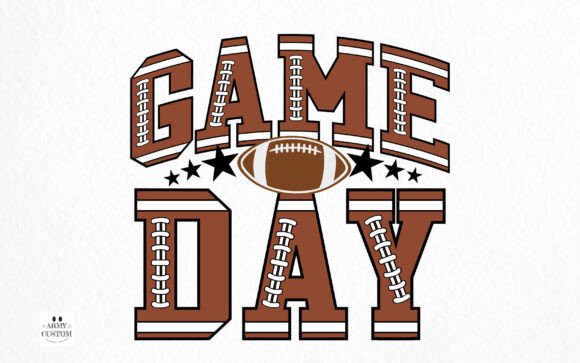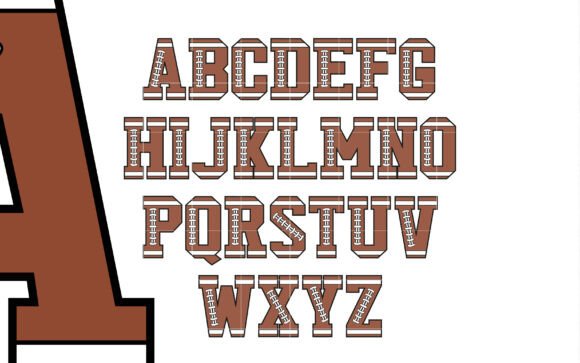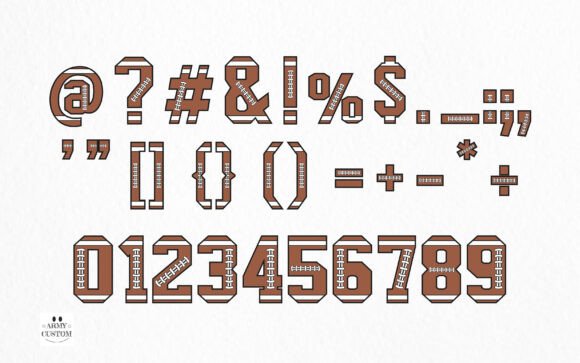
The Perfect Play: Unlocking the Power of the American Football Font
For designers who bleed gridiron green, there’s a font that’s sure to be the MVP of their typography arsenal: the American Football Font. Imagine you’re huddled around the TV on a crisp autumn Sunday, surrounded by friends and family, cheering on your favorite team. You’re on the edge of your seat as the quarterback calls an audible, and the crowd erupts in a frenzy of noise and color. In that moment, the excitement is palpable – and it’s exactly that energy that the American Football Font aims to capture.
This innovative font is more than just a pretty face; it’s a tool for designers who want to tap into the unbridled passion and energy of the sport. With its unique blend of athleticism and style, the American Football Font is the perfect choice for anyone looking to communicate strength, agility, and unyielding spirit. Whether you’re designing for a sports brand, a team, or just a fan, this font is sure to score big with your audience.
- Unique Characteristics: Distinctive, bold, and rugged design elements, reminiscent of American football team logos and branding
- Style Variations: Offers a range of style variations, including Regular, Bold, Italic, and Outline, to cater to different design needs
Designer Review: American Football Font
Overall, I think the American Football Font has some great qualities that make it appealing, especially for sports enthusiasts. Here are a few things that really stand out: ✨
- Unique style**: The font has a distinct, bold feel that’s reminiscent of classic American football jerseys.
- Highly customizable**: The font comes in a range of weights and styles, making it easy to tailor to different design needs.
- Fun and energetic**: The font has a lively, playful feel that’s perfect for sports-related projects.
- Limited legibility**: In smaller font sizes, the letters can become difficult to read, which may impact usability.
- Lack of nuance**: The font’s bold, graphic style can feel a bit one-dimensional at times, which may limit its versatility.
Overall, I think the American Football Font is a fun, attention-grabbing option that’s perfect for sports-related projects. While it may not be the best choice for every design task, it’s definitely worth considering for projects that need a bold, energetic feel.
For maximum impact, use the American Football Font in conjunction with bold colors and bold graphics. Common use cases include:
- Designing sports-themed graphics and posters.
- Creating custom jerseys and sports equipment labels.
- Designing sports-themed websites and social media graphics.
Alternatives to American Football Font
Fontin is a modern sans-serif font that resembles the bold and condensed feel of American Football Font. It’s ideal for use in sports branding, particularly for football teams. Fontin has a more refined and detailed design, making it suitable for both digital and print media.
Comparison: Fontin is more modern and detailed than American Football Font, with a more condensed and bold feel.
Playfair Display is a luxurious and elegant serif font that can be used as an alternative to American Football Font for sports branding that wants to convey a sense of sophistication and high-end quality. It’s perfect for use in sports magazines, newspapers, and online publications.
Comparison: Playfair Display is more elegant and sophisticated than American Football Font, with a more refined and detailed design.